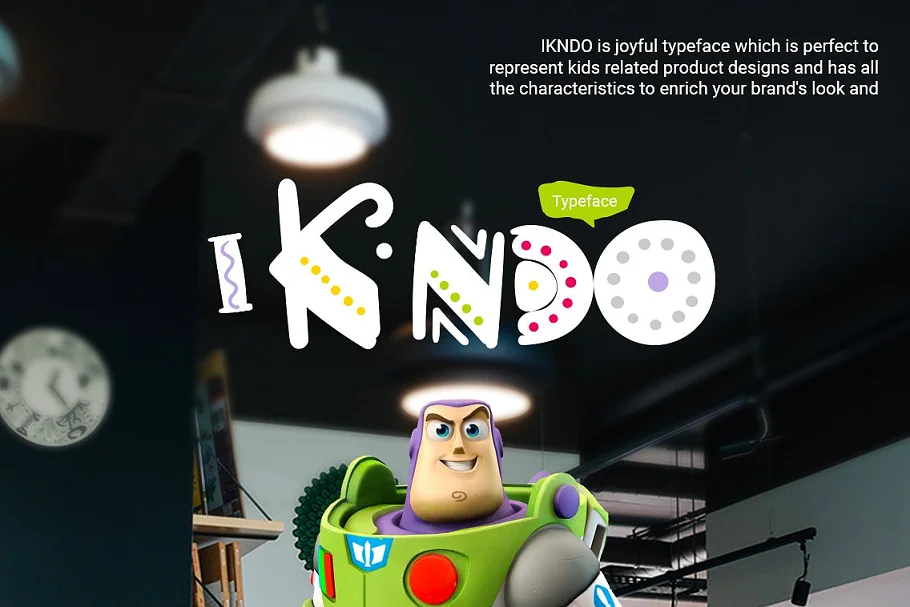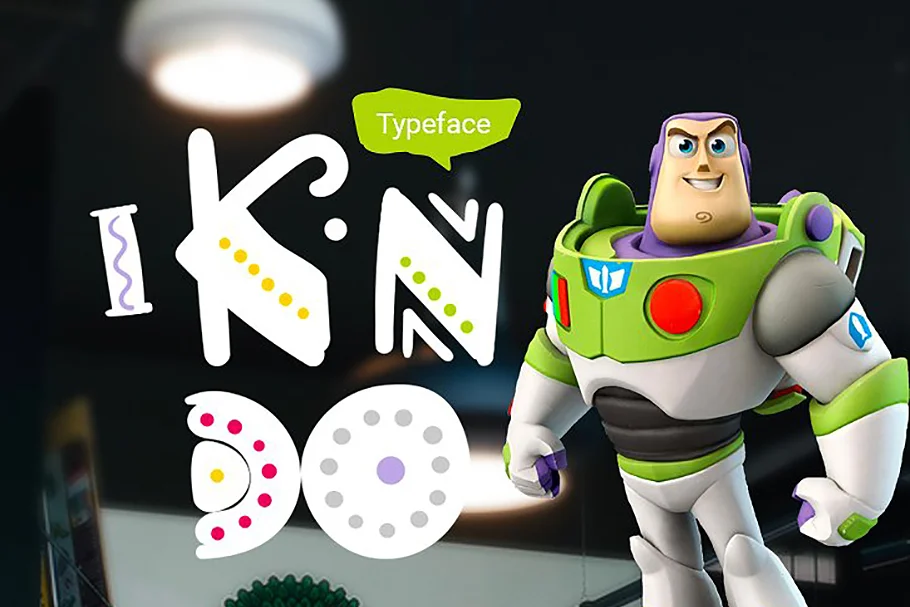
About the Ikndo Typeface Font
Introducing a new typeface called into which is perfect for Logo, Logo type, quotes, apparel design, invitations, flyer, poster, greeting cards, product packaging, headers, printed quotes, cover album, etc.